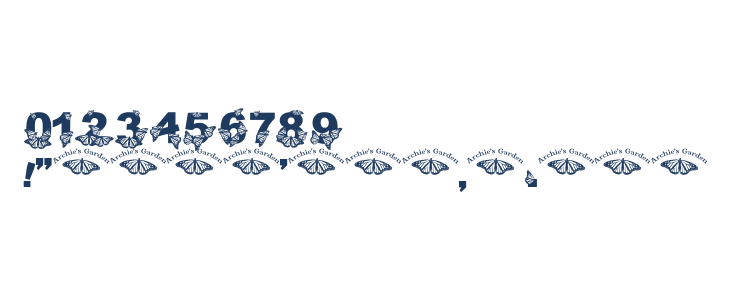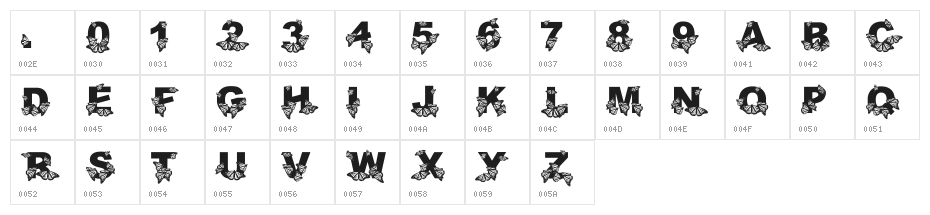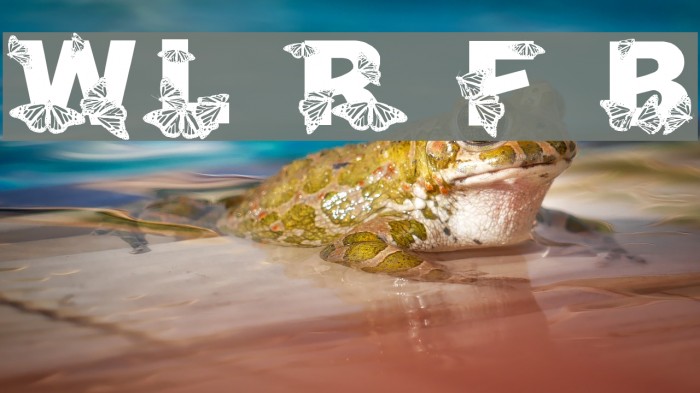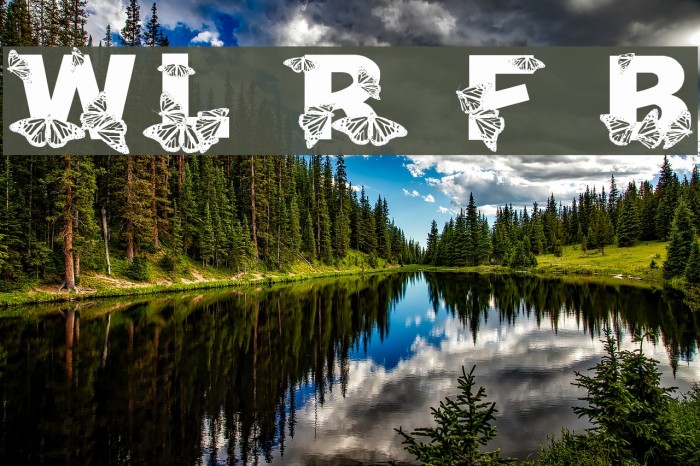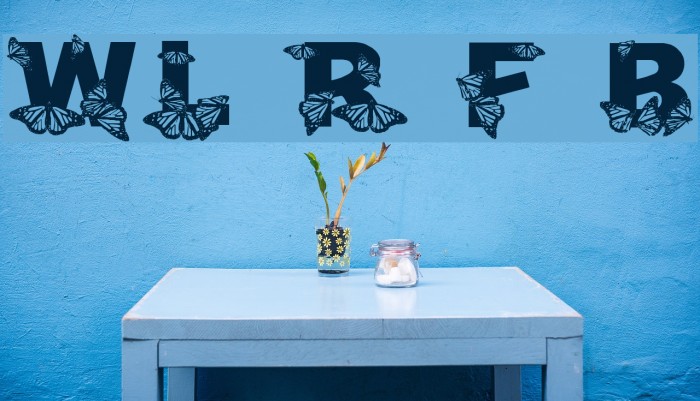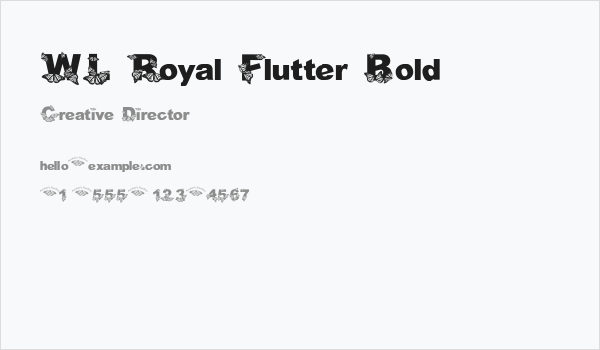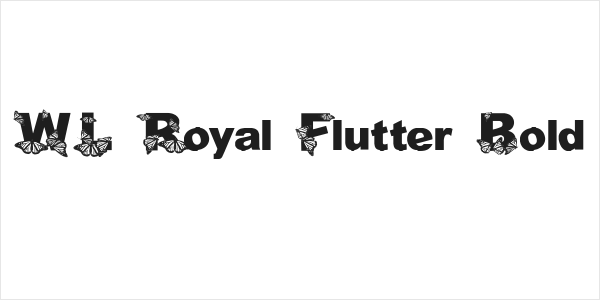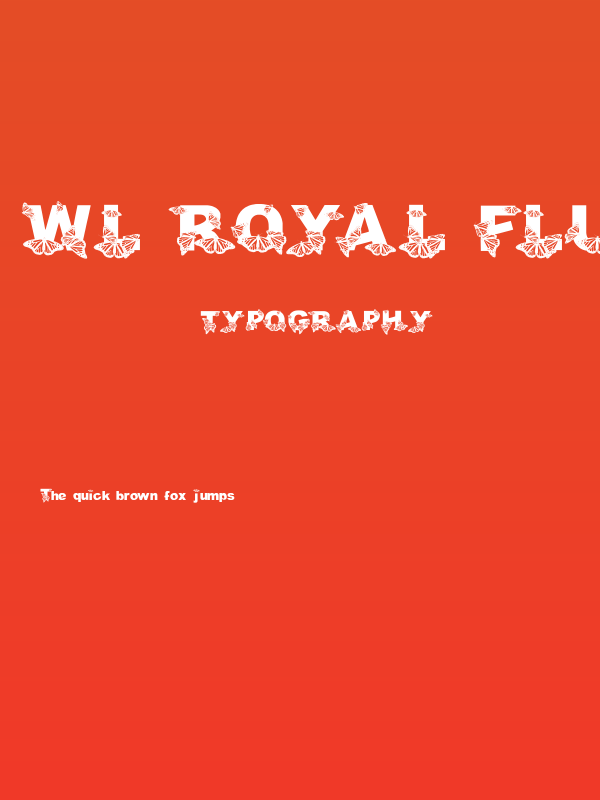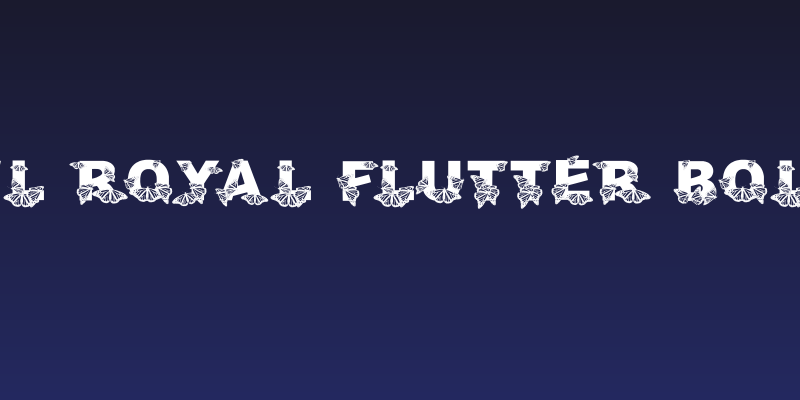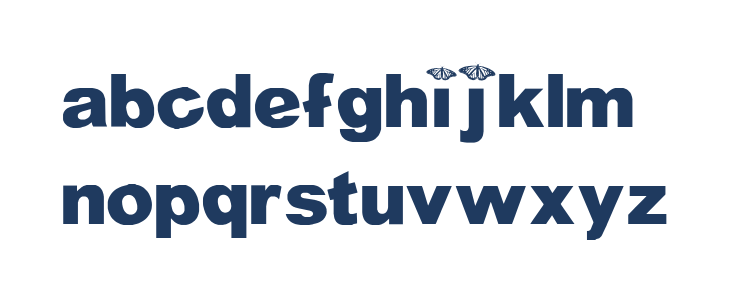
WL Royal Flutter Bold Font
WL Royal Flutter Bold Description
This font features a unique blend of bold, modern typography with decorative butterfly elements integrated into the uppercase letters and numbers. The lowercase letters maintain a clean, bold sans-serif style, providing a striking contrast to the ornate uppercase. The butterfly motifs add a whimsical and artistic touch, making it ideal for creative and eye-catching designs. The font is bold and impactful, with a strong presence that commands attention. It is perfect for projects that require a blend of elegance and modernity, with a touch of nature-inspired decoration.
| Use Case | Logos, Headlines, Artistic Designs |
| Proposed Projects | Ideal for branding, logos, event invitations, and artistic posters. |